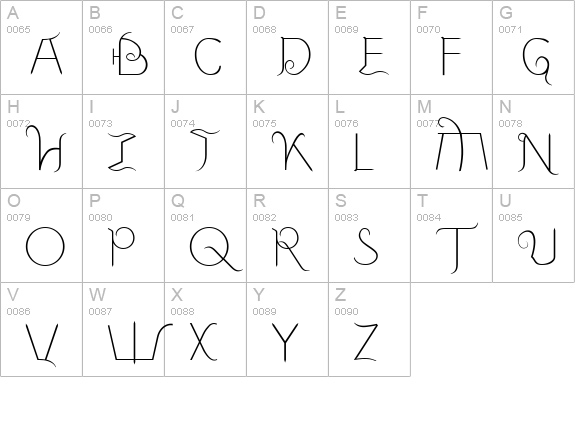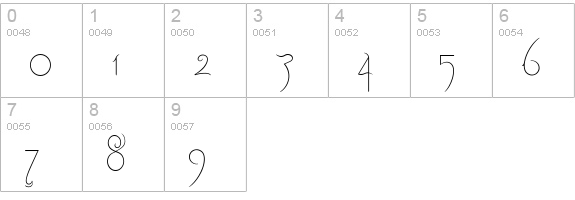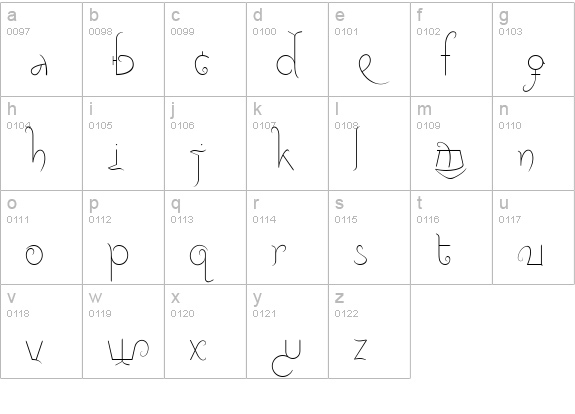
9mm Font Details
The 9mm font is a sleek and modern typeface designed with precision and clarity in mind. With its clean lines and balanced proportions, this font is perfect for a wide range of design projects, from branding to editorial layouts. The 9mm font exudes a sense of sophistication and professionalism, making it an ideal choice for businesses and creatives alike. Best of all, this elegant font is available for free download at FontsMarket.com. Simply visit the website to access this versatile typeface and elevate your designs with its timeless appeal. Don't miss out on the opportunity to enhance your projects with the 9mm font - download it today and experience the power of exceptional typography at your fingertips.